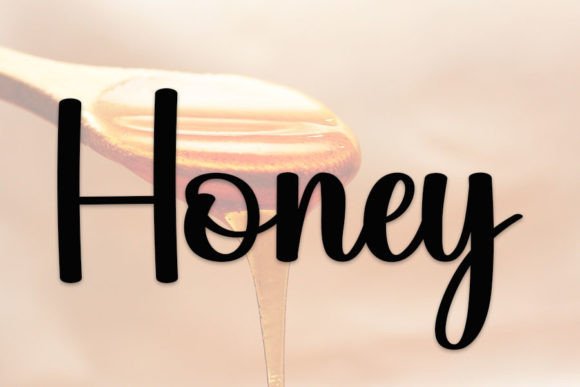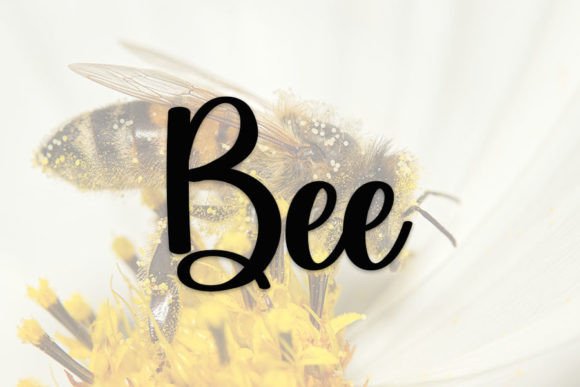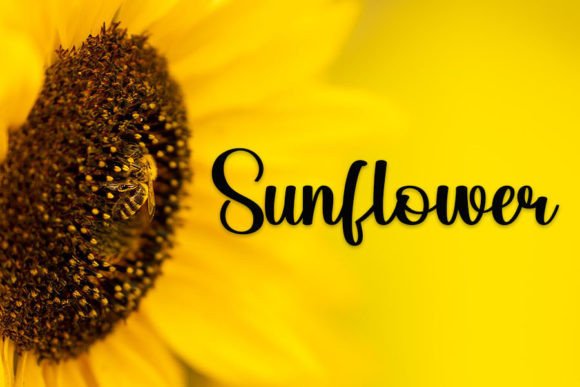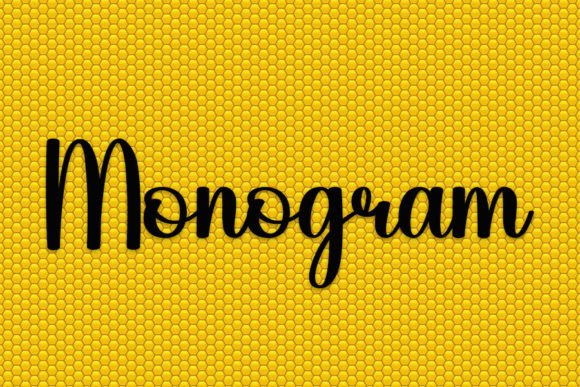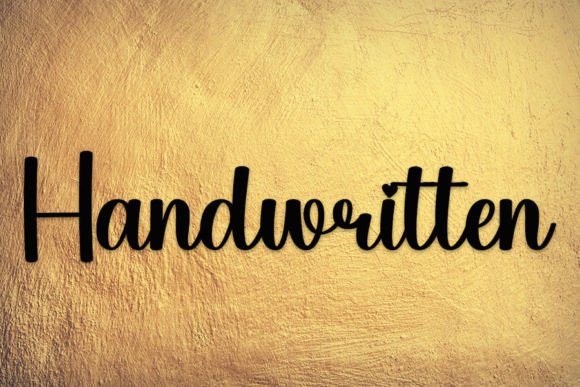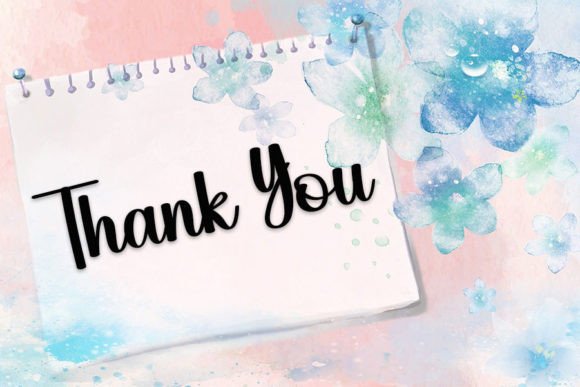
The Sweet Spot: Discovering the Charm of Beehive Font
I’ll never forget the moment I stumbled upon the perfect font for a project. I was working on a branding campaign for a local bakery, and I was determined to find a font that would capture the warmth and coziness of their freshly baked goods. After hours of scrolling through font libraries, I finally found it – Beehive Font. Its elegant touch and timeless style instantly won me over, and I knew I had found the perfect fit. In this article, I’ll share my love for Beehive Font, its features, and how to make the most of it in your designs.
A Personal Review: What I Love About Beehive Font
Beehive Font has quickly become one of my go-to fonts, and here’s why:
- ✨ Elegant and refined: Beehive Font exudes sophistication and poise, making it perfect for high-end branding projects.
- ✅ Versatile: Its neat and beautiful handwritten style works well for a variety of design applications, from logos to social media graphics.
- 💫 Timeless: Beehive Font’s classic style ensures it won’t go out of fashion anytime soon, making it a great investment for designers.
While Beehive Font is an excellent choice, there are a few things to keep in mind:
- 🤔 Limited use of all-caps: Beehive Font’s elegant style works best in mixed case or title case. All-caps can make it appear less refined.
- ⚠️ Glyph limitations: While Beehive Font has a range of glyphs and stylistic alternates, it may not have the extensive character set of some other fonts.
A Practical Guide: Using Beehive Font in Your Designs
Exploring Alternatives: Similar Fonts to Beehive
If you love Beehive Font, you might also enjoy:
- Pacifico: A beautiful, elegant script font perfect for creative projects and branding.
- Great Vibes: A stylish, handwritten font ideal for titles and headings.
- Lobster: A classic, elegant script font suitable for formal and informal designs.
- Carolyna Pro: A refined, elegant script font great for high-end branding and designs.
The Story Behind Beehive Font
Beehive Font was inspired by the intricate patterns and beauty of beehives. Its creator aimed to capture the elegance and refinement of nature in a font that would be both timeless and versatile. The result is a font that is both classic and modern, perfect for a wide range of design applications.
Q: What makes Beehive Font unique?
A: Beehive Font’s unique blend of elegance and refinement, combined with its versatility, makes it a standout choice for designers.
Q: Is Beehive Font suitable for body text?
A: While Beehive Font is beautiful, its elegant style works best for headings and titles. For body text, a more traditional font might be more suitable.